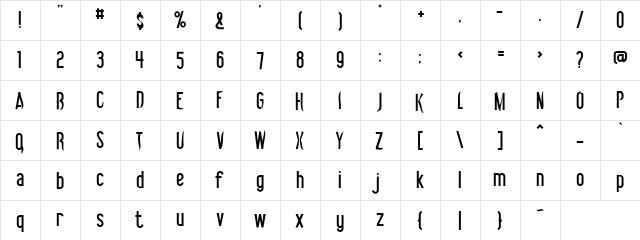
Vibrolator Regular
Design Context for Vibrolator Typeface
Vibrolator is a composed and adaptable typeface that performs quietly and consistently across a wide range of design contexts.